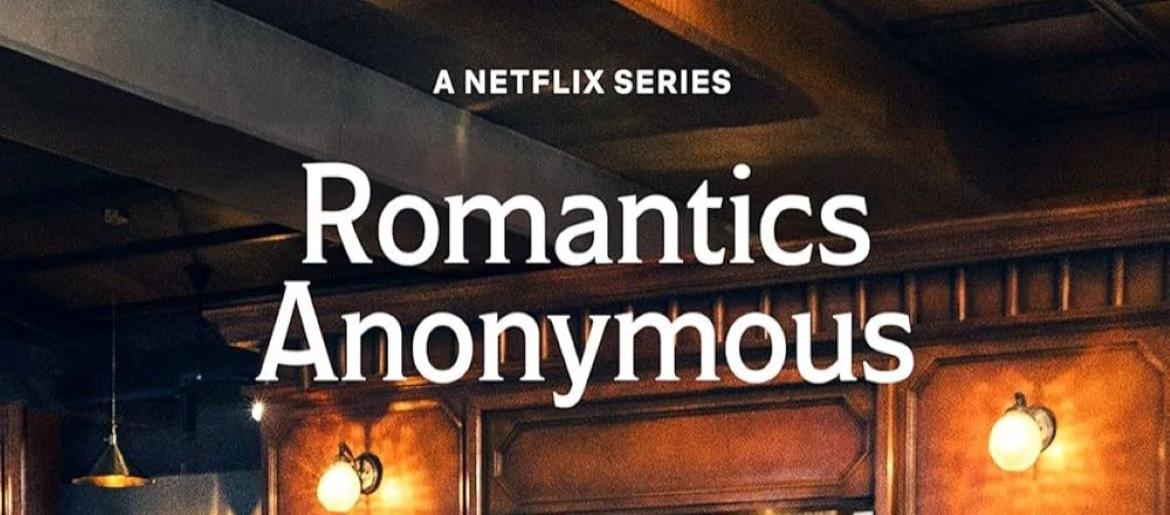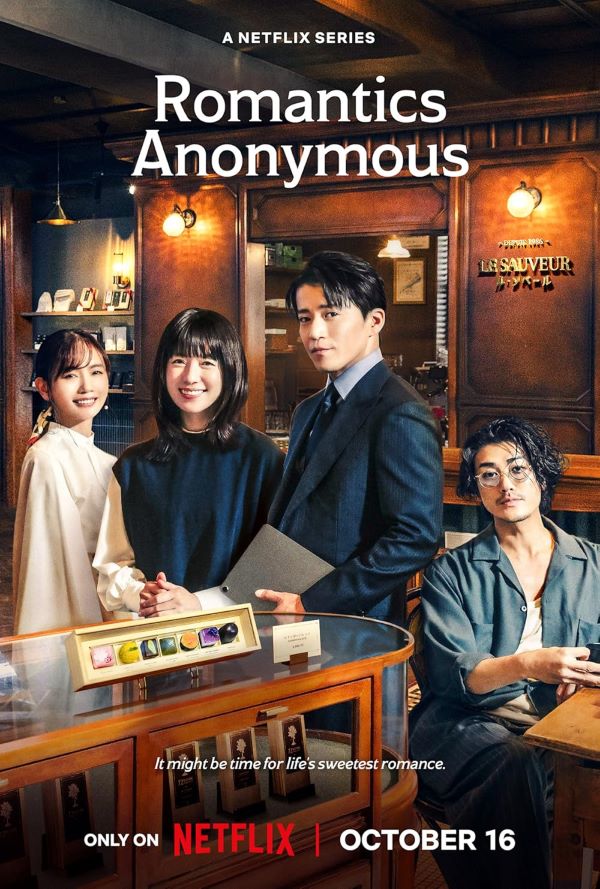
Romantics Anonymous Font
What is The Font Of Romantics Anonymous?
The Romantics Anonymous Font used for the film’s title logo is very likely based on the premium typeface Modesto Text Light. For designers who would prefer a cost-friendly option, we have identified a free alternative font that closely mirrors the same elegant, light serif appearance—perfect for replicating the romantic and refined typographic feel of the original design.
About Romantics Anonymous
Romantics Anonymous (2025) is a Japanese–South Korean TV series adaptation of the beloved French film. It follows two socially anxious chocolate makers whose love story unfolds with tenderness, humor, and vulnerability. The show explores emotional connection, fear, and courage in love, all wrapped in a visually rich and heartfelt tone. The elegant serif typography of the title reflects the series’ delicate storytelling and the sweetness of its central theme.